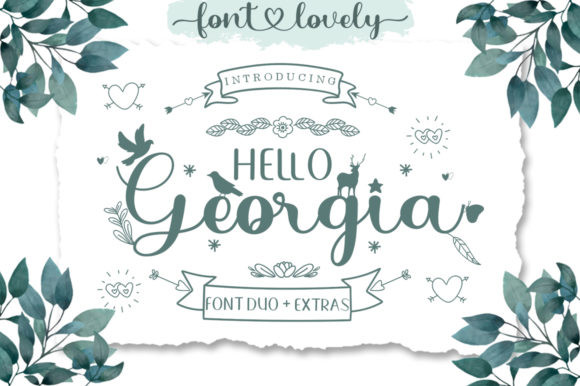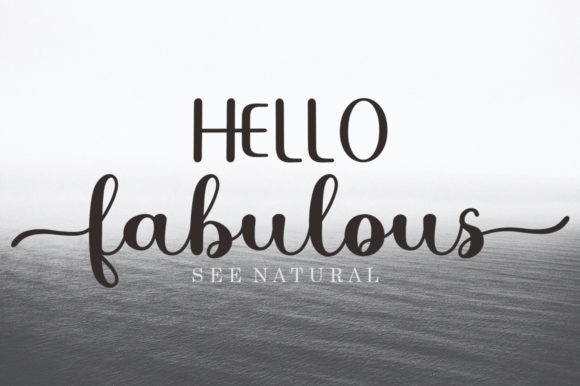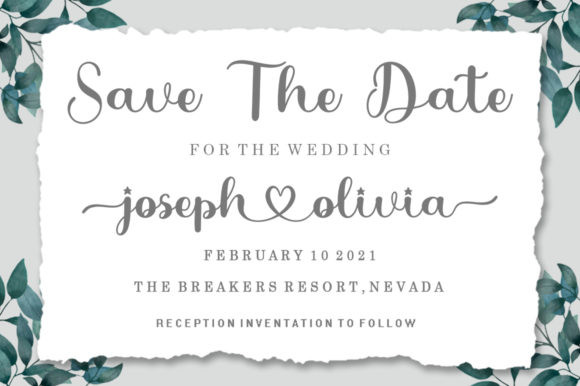
Hello Georgia Font
Hello Georgia is a ravishing duo font (sans serif and script). Adaptable and graceful, this font fits a wide pool of designs, elevating them to the highest levels. Add this font to your favorite creative ideas and notice how it makes them come alive!